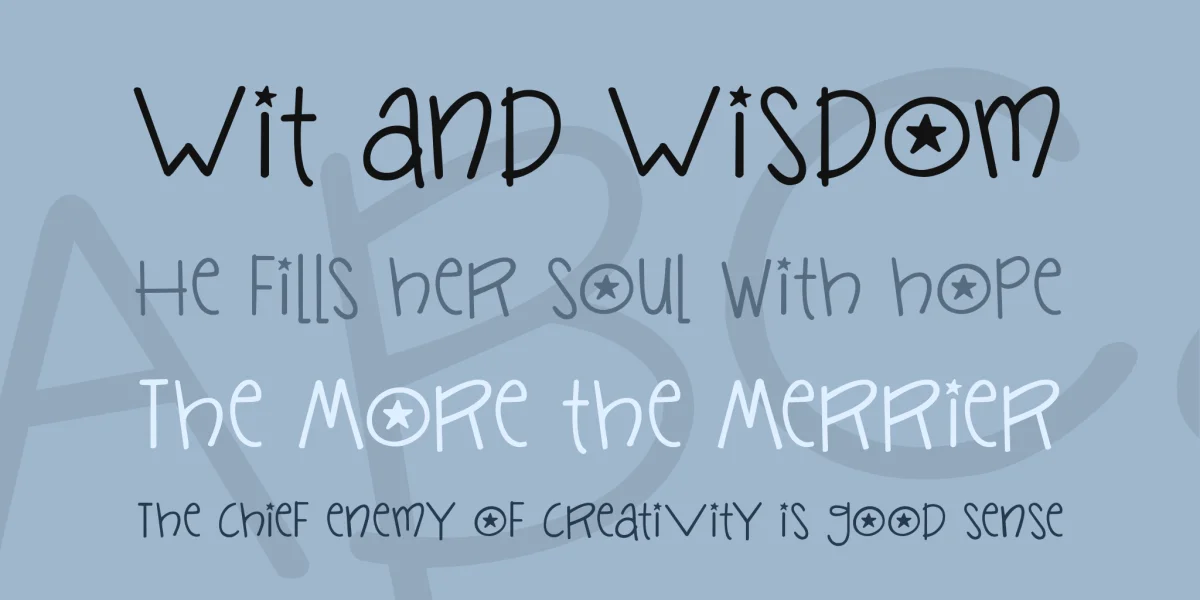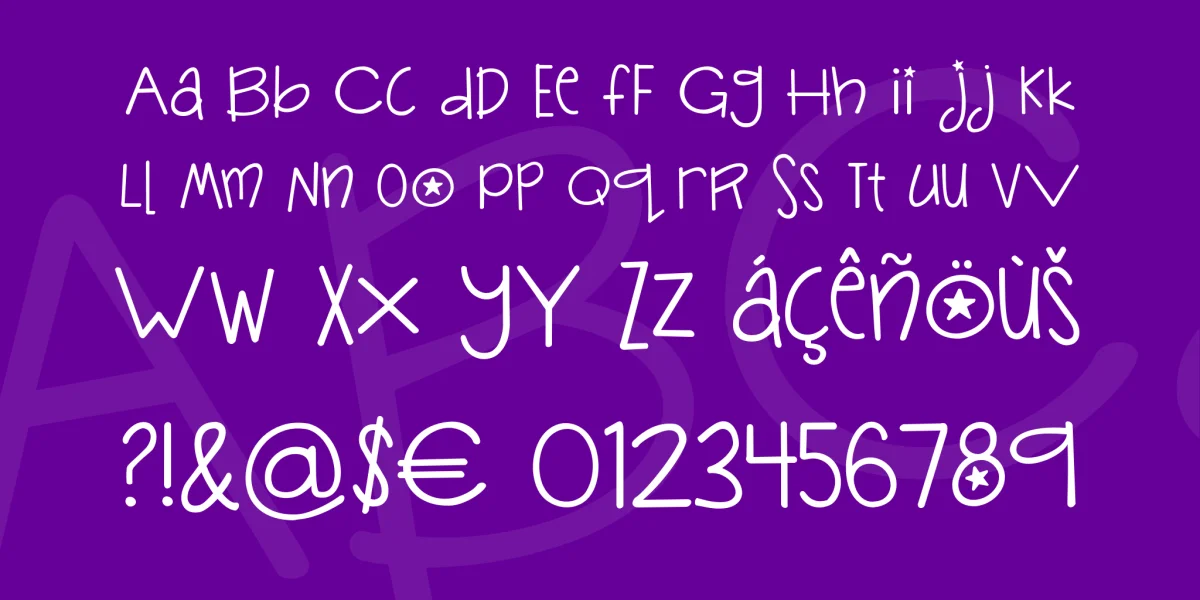
This adorable font was slightly inspired by my 7-year-old daughter who was born in the Chinese year of the Monkey and has embodied that spirit from her first breath.
This font was created by Kimberly Geswein.